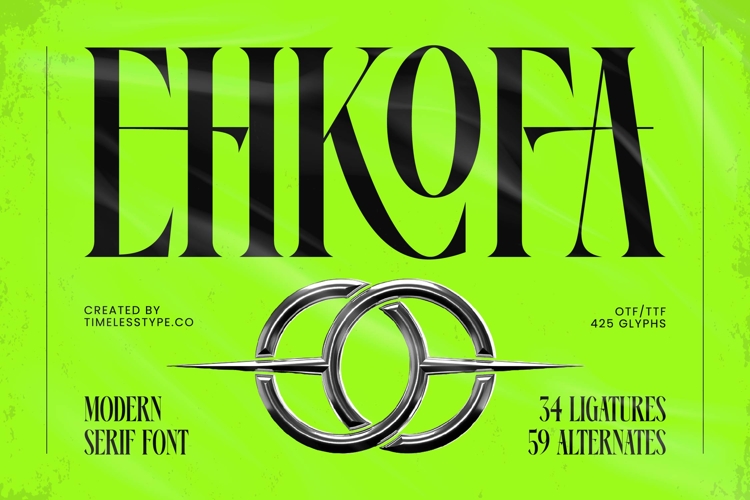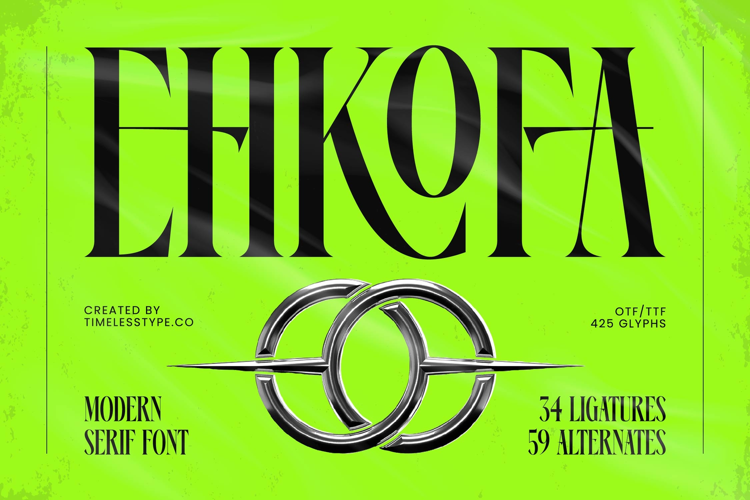
Ehkofa - Modern Serif Font
Elevate your designs with the unparalleled elegance of Ehkofa - Modern Serif Font. This typeface commands attention with its striking balance of classic sophistication and contemporary flair. Its bold, high-contrast letterforms and sharp, refined serifs create an instant impression of luxury and prestige. Designed for maximum impact, Ehkofa - Modern Serif Font offers a distinctive voice that transcends ordinary typography, ensuring your message is not just seen, but felt.
Experience limitless creative potential with Ehkofa - Modern Serif Font's rich feature set. Boasting 425 glyphs, 34 exquisite ligatures, and 59 stylish alternates, this font provides designers with an extraordinary toolkit for crafting truly unique and captivating visuals. Each character is meticulously designed to project a sense of polished professionalism and modern artistry, allowing for intricate typographic compositions that stand out.
Unlock global appeal for your brand with the inherent versatility of Ehkofa - Modern Serif Font. This font is perfect for luxury branding, high-end packaging, editorial design, sophisticated headlines, and impactful advertising campaigns where a touch of glamour and modernity is essential. With its extensive multilingual support, Ehkofa - Modern Serif Font adapts seamlessly across global markets, making it incredibly versatile for international projects, ensuring your message resonates universally.